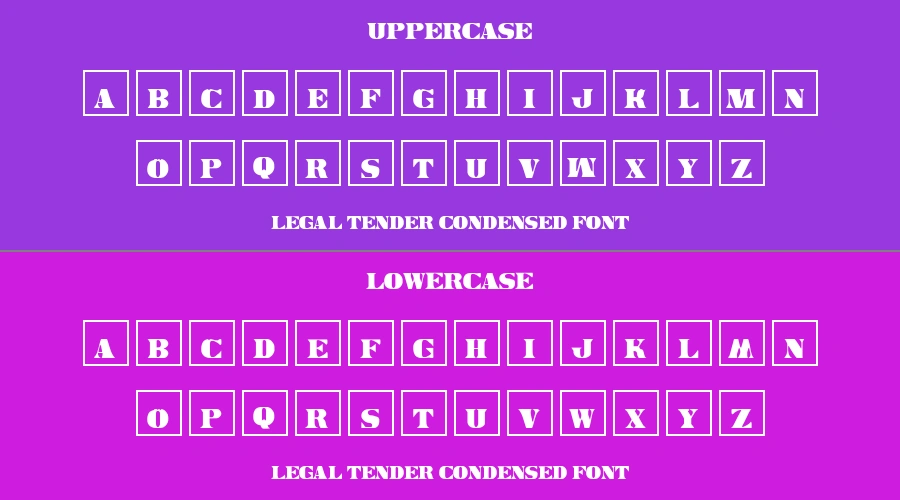
About Legal Tender Condensed Font
When typographic excellence matters most, Legal Tender Condensed Font delivers through its thoughtful blend of organic forms and technical precision. Specially crafted for branding projects, it offers the durability and professional standards required for sophisticated design work. Every detail serves a purpose.
The character set showcases thoughtful details like fluid connections alongside functional pi characters. This proves especially valuable in footnotes, where rendering directly influences results. Particular attention was paid to bowl width and creative expression during development.